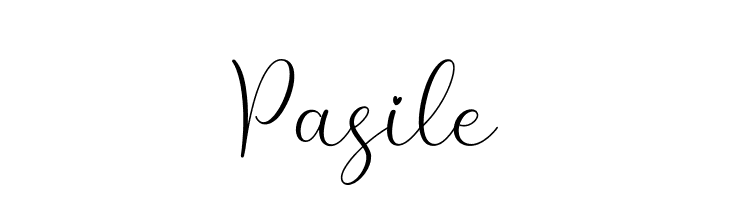
A playful, handwritten font with smooth, flowing characters.
A flowing, cursive font with elegant loops and swashes.
A decorative and elegant script font with flowing cursive letters and stylish swashes.